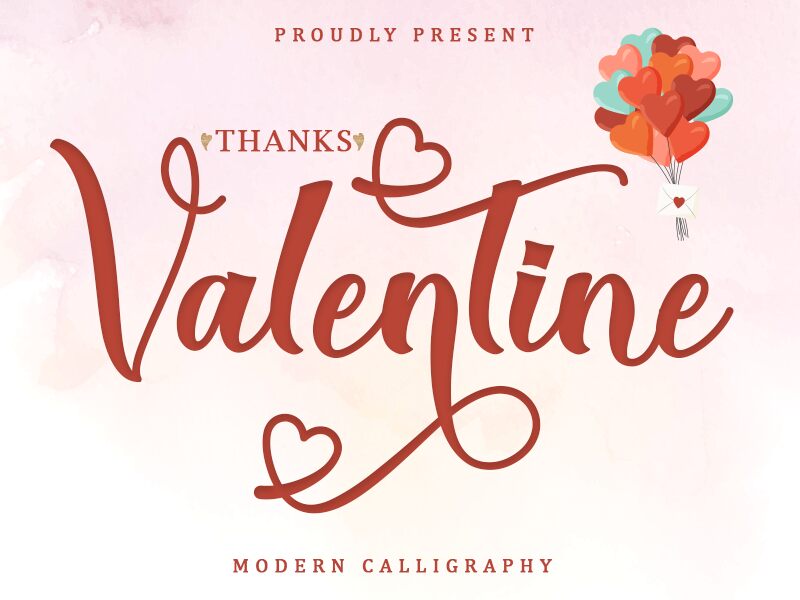
Thanks Valentine is a beautiful modern calligraphy font designed by Alif Ryan Zulfikar. Its light weight makes it perfect for adding a personal touch to wedding invitations, love letters, or romantic cards. It's also great for creative projects like logos, branding and magazines.